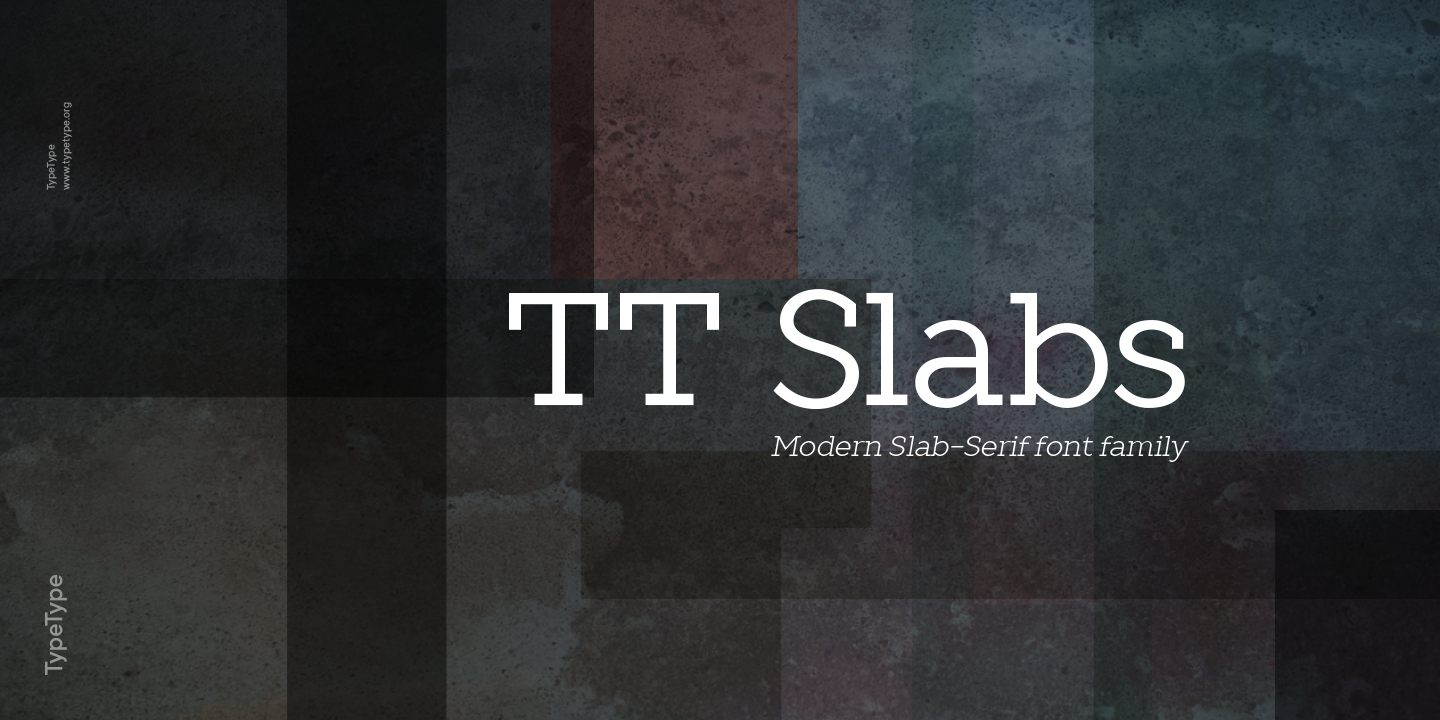
The TT Slabs Font is a robust and highly versatile slab serif typeface, renowned for its strong presence and exceptional clarity. Imagine its commanding letterforms bringing a solid foundation to corporate branding, adding a confident edge to editorial designs for magazines, or creating impactful headlines for advertising campaigns that demand attention. Its sturdy serifs and balanced proportions also make it an excellent choice for product packaging, website headers, sports-related graphics, and even architectural presentations. Whether you're aiming for a reliable, no-nonsense look or a contemporary, assertive aesthetic, TT Slabs Font delivers with its unwavering character, ensuring your message is conveyed with undeniable authority and readability.
What makes TT Slabs Font so exciting is its masterful blend of strength and sophisticated legibility. In a crowded visual landscape, a font that can stand out with its bold personality while remaining remarkably clear across various applications is invaluable. TT Slabs Font offers designers the power to create designs that feel both substantial and modern, making a strong statement without being overly aggressive. It’s more than just a typeface; it’s a strategic choice that can define the entire tone of a project, imbuing it with a sense of reliability, professionalism, and contemporary flair. Designers will find it an indispensable tool for crafting visuals that truly resonate with an audience.
The TT Slabs Font family is typically extensive and incredibly comprehensive, offering a wide array of weights and styles to provide maximum typographic flexibility. Beyond the foundational TT Slabs Regular, you can often find a rich spectrum of options including TT Slabs Thin, TT Slabs Light, TT Slabs Medium, TT Slabs Bold, TT Slabs ExtraBold, and even TT Slabs Black for ultimate impact. Each weight usually comes with corresponding TT Slabs Italic versions. Furthermore, professional versions frequently include various widths (e.g., condensed, extended), small caps, multiple numeral styles (e.g., old-style, lining), and an extensive character set, providing immense versatility for complex design systems. These diverse family members ensure that designers can create sophisticated and cohesive typographic hierarchies, maintaining a powerful and consistent aesthetic from body copy to dominant headlines.